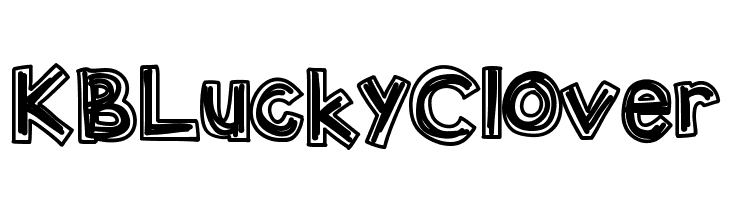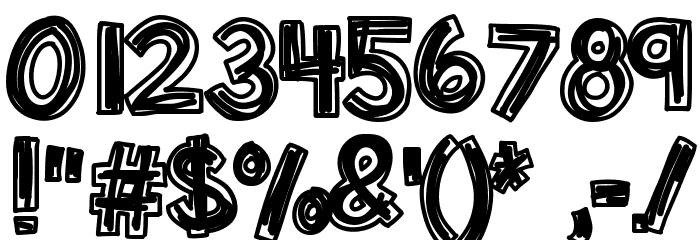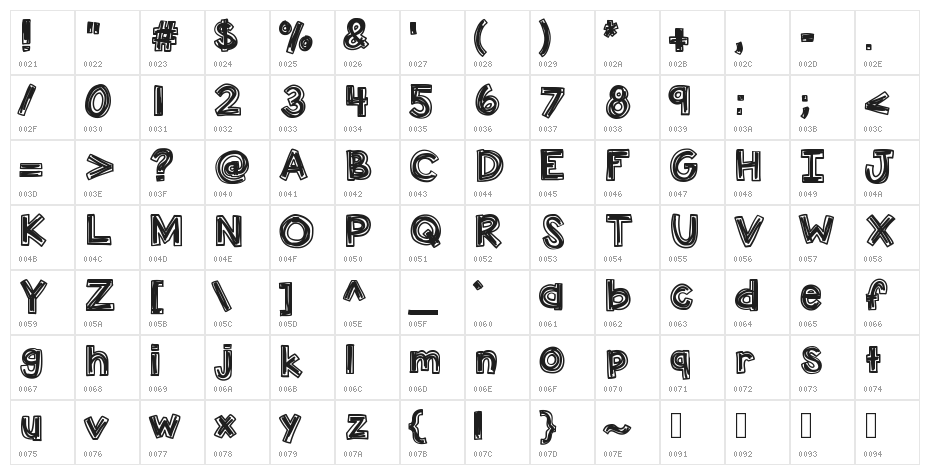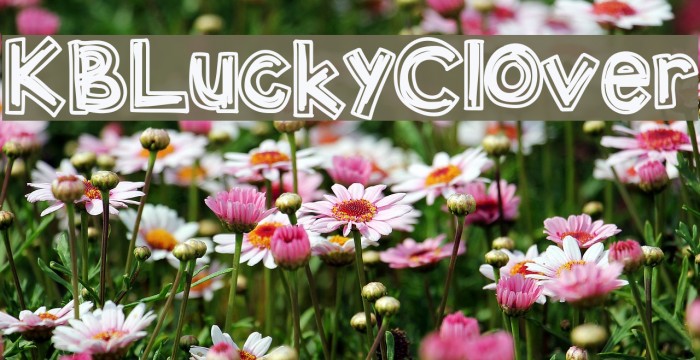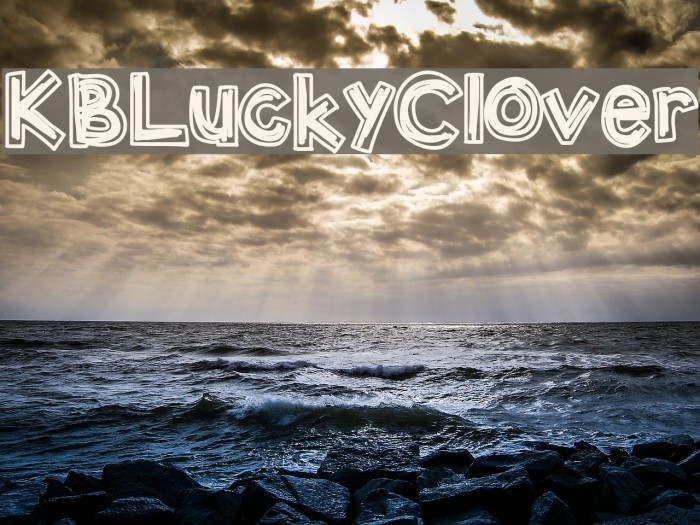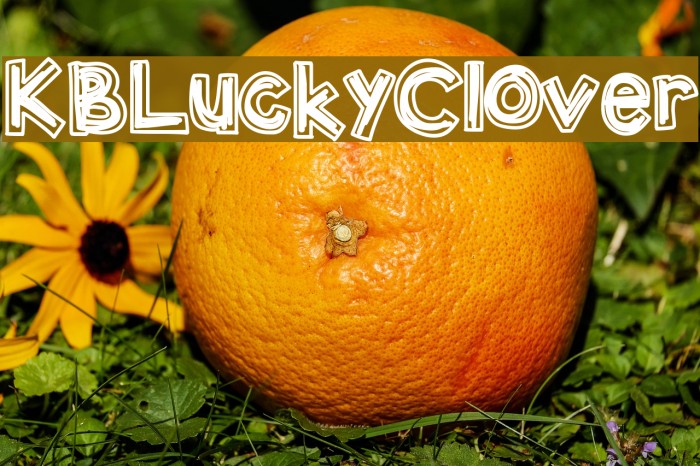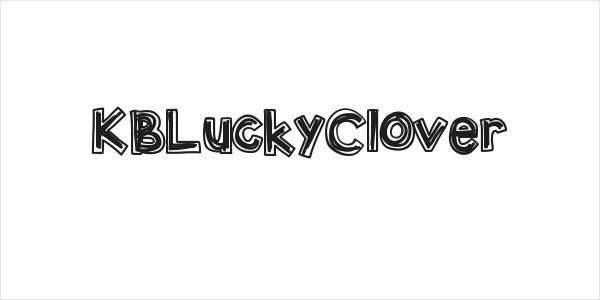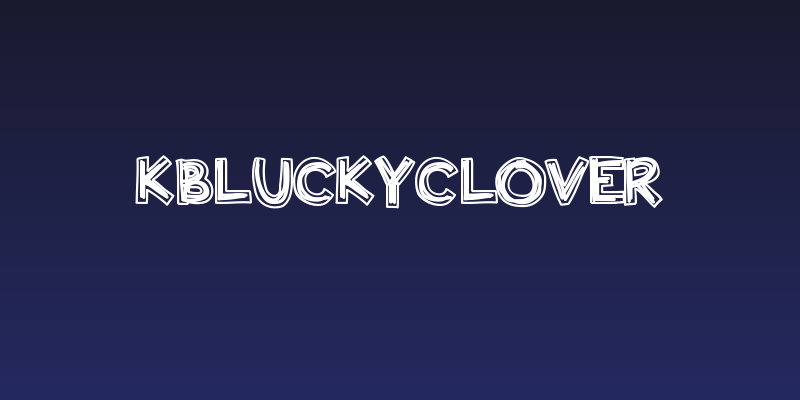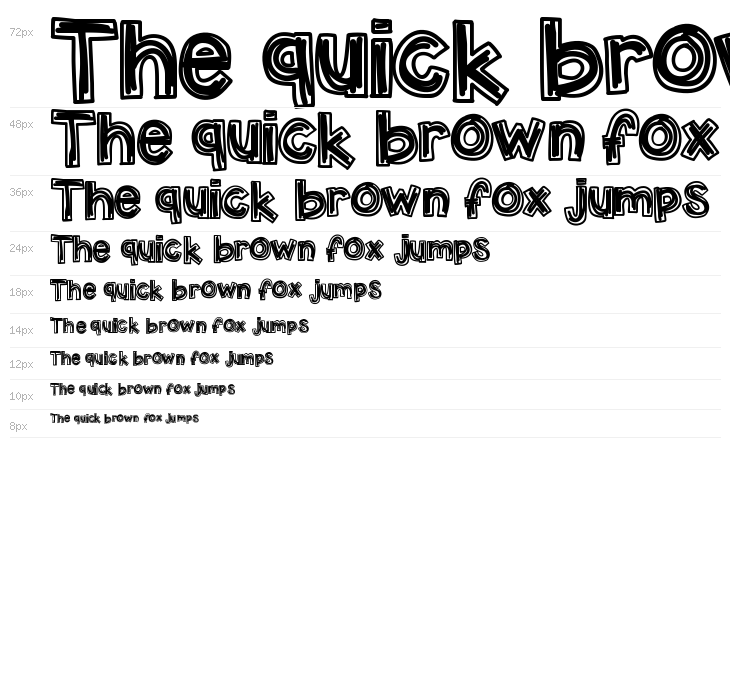
KBLuckyClover Font
KBLuckyClover Description
This font features a playful and bold design with a hand-drawn aesthetic. Each character is outlined with a thick black stroke, giving it a cartoonish and dynamic appearance. The letters are slightly irregular, adding to the whimsical and informal feel. The uppercase and lowercase letters maintain a consistent style, while the numbers and special characters are equally bold and expressive. This font is perfect for projects that require a fun and lively touch, such as children's books, posters, or party invitations.
| Overall Style | Playful, Whimsical, Cartoonish |
| Use Case | Headlines, Posters, Invitations |
| Proposed Projects | Ideal for children's books, playful posters, party invitations, and comic-style designs. |